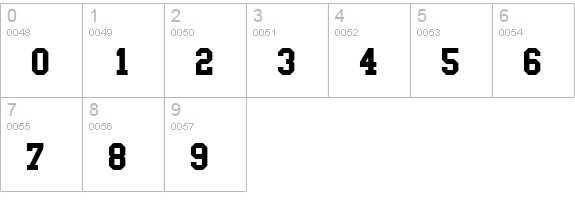
SPORT SPIRIT AF Font Details
Introducing SPORT SPIRIT AF, a bold and dynamic font that embodies the essence of athleticism and sportsmanship. This font is designed to capture the spirit of competition, energy, and determination, making it perfect for sports-related projects, team logos, event posters, and more. With its strong and impactful letterforms, SPORT SPIRIT AF commands attention and demands to be noticed. Its sleek curves and sharp edges create a sense of motion and power, reflecting the passion and intensity that sports enthusiasts and athletes bring to the field. But what sets SPORT SPIRIT AF apart is its versatility and flexibility. It can effortlessly adapt to various design styles, whether you're going for a sleek and modern look or a more vintage and nostalgic vibe. This font is a true chameleon that can elevate any sports-related design project to the next level. And the best part? SPORT SPIRIT AF is absolutely free! You can easily download this font at FontsMarket.com, a trusted source for high-quality fonts. Whether you're a professional designer or a passionate hobbyist, this font is freely available for you to unleash your creativity and bring your sports-inspired visions to life. So why wait? Grab SPORT SPIRIT AF today and let its powerful presence and spirited energy take your sports-related designs to new heights. It's time to embrace the captivating allure of athleticism and bring your projects to the winner's podium.